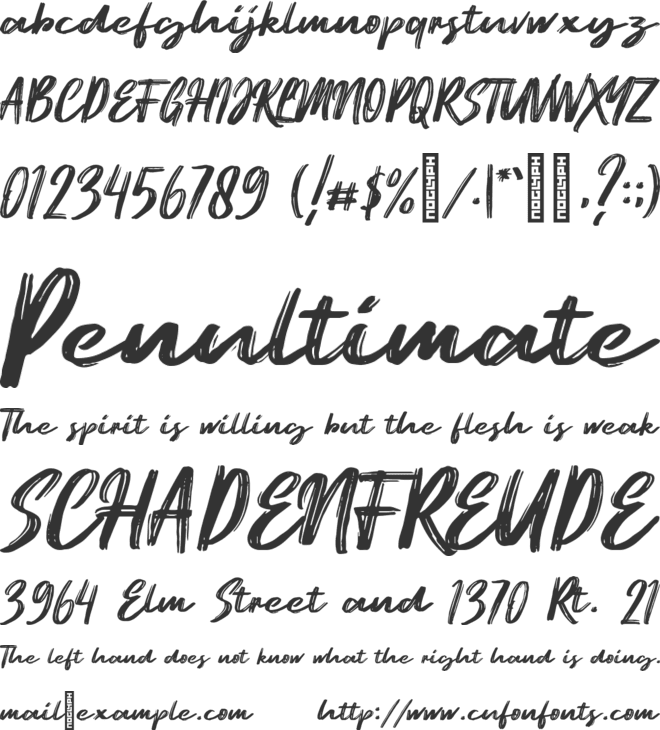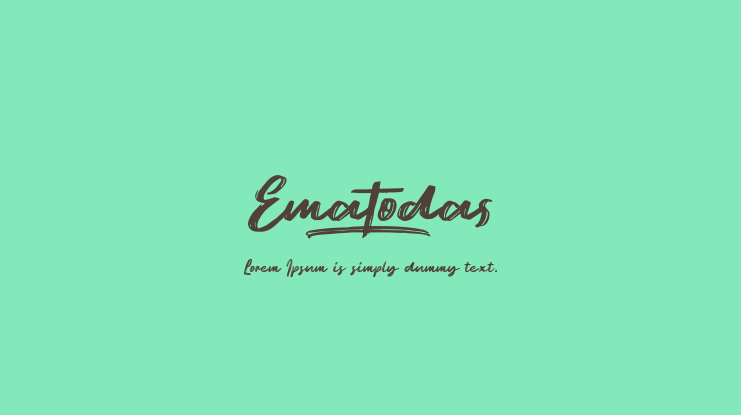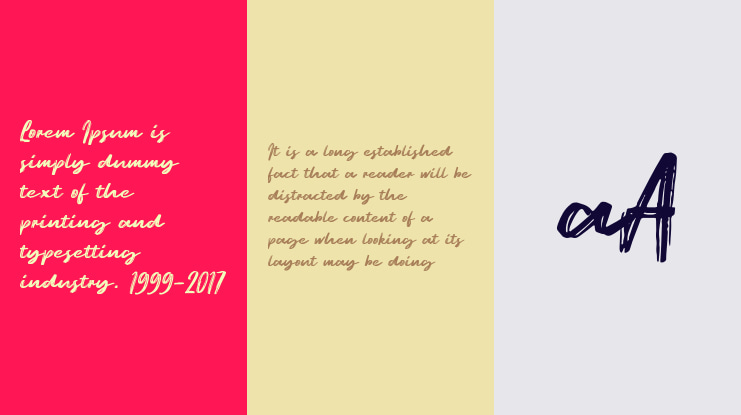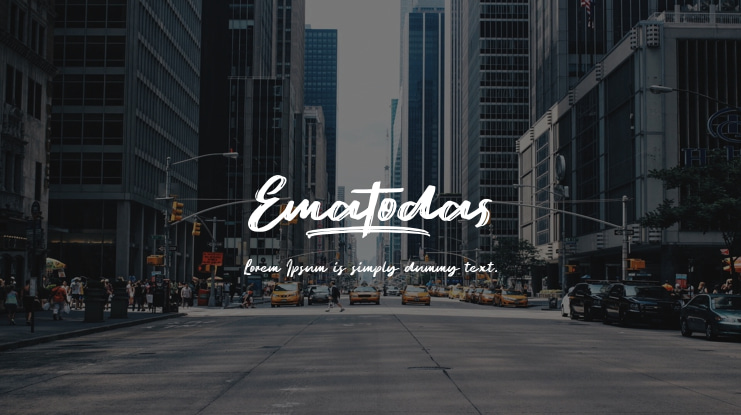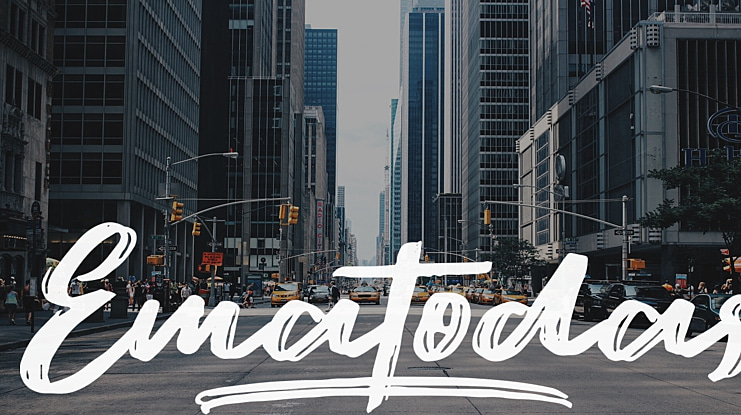
Ematodas Font
Introducing Ematodas , a bold brush handwrittem typeface.With dry brush texture that you can feel it. This font is versatile font , so you could playing around with the allcaps as well. This font will rock your any design projects.